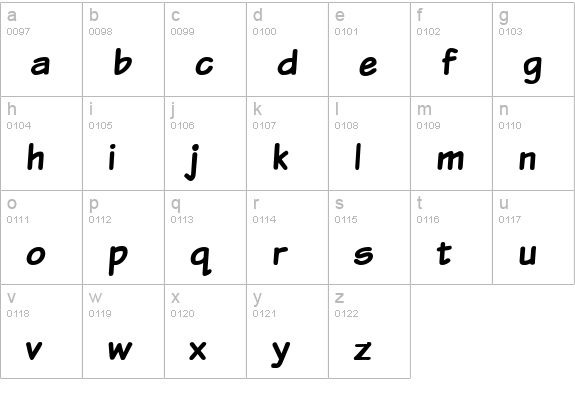
Introducing VTCSundaykomixBold, a captivating and energetic font that will bring your designs to life! This font is the perfect choice for those seeking a bold and playful look that commands attention. With its dynamic lines and strong presence, VTCSundaykomixBold effortlessly adds a sense of excitement and vibrancy to any project. But what makes VTCSundaykomixBold even more remarkable is that it is freely available to download at FontsMarket.com! Yes, you read that right - this incredible font can be yours without spending a penny. Whether you're a professional designer looking to enhance your creations or a hobbyist unleashing your creativity, VTCSundaykomixBold is the ideal companion. Imagine the possibilities with VTCSundaykomixBold. From eye-catching headlines to captivating posters, this font will effortlessly captivate your audience and leave a lasting impression. Its bold and unique style makes it perfect for various design projects, including branding, advertising, packaging, and more. With VTCSundaykomixBold, you have the power to unleash your imagination and create stunning visuals that truly stand out. Its versatility allows it to be used across various platforms, whether it's print or digital media. This font is designed to make a statement and leave a lasting impact on your audience. So why wait? Don't miss out on the opportunity to elevate your designs with VTCSundaykomixBold. Head over to FontsMarket.com now and download this incredible font for free. It's time to let your creativity soar and make a bold statement with VTCSundaykomixBold!